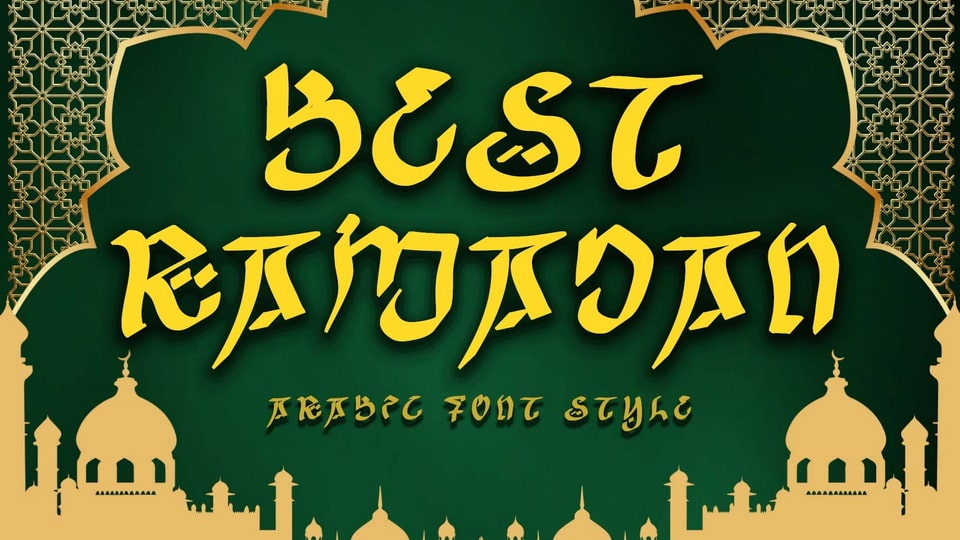
Download Best Ramadan font, a very elegant and unique Arabic style typeface. Very suitable for Ramadan moments, movie titles, book titles, logos, stickers, posters, prints, branding, invitations, Ramadan greetings and others.